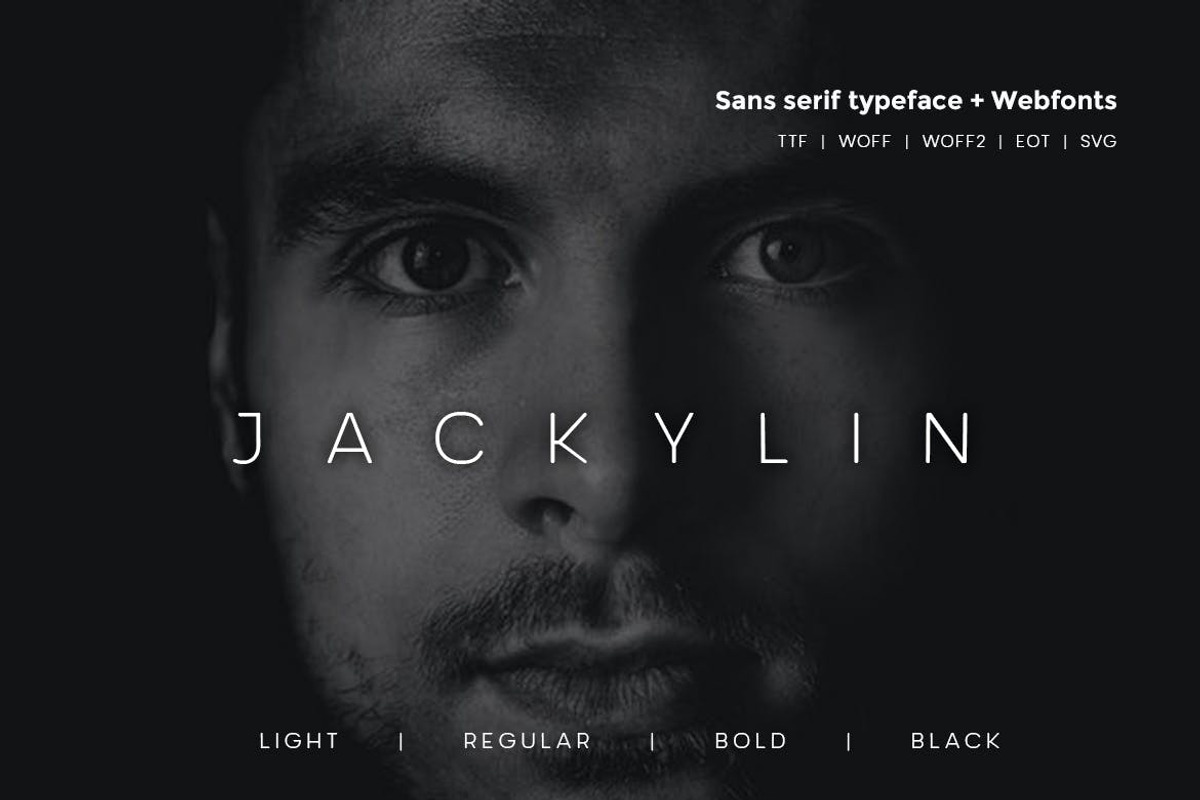
Jackylin - Typeface + WebFont with 4
Jackylin Sans Typeface
Another modern fantastic sanserif typeface from Unbranded, which delivers a remarkable unique typography style. Jackylin Sans Family available in four weights, Light, Regular, Bold, and Black included in the pack. The pack also includes OTF, TTF, and Web Fonts (all EOT, SVG, TTF, WOFF included).
Font Designed and Crafted by Martin Jacob, Distributed by Webhance Studio.